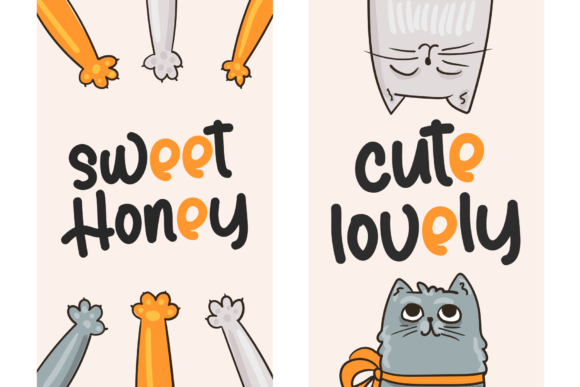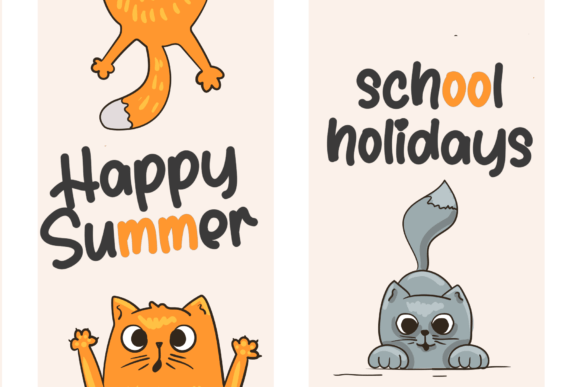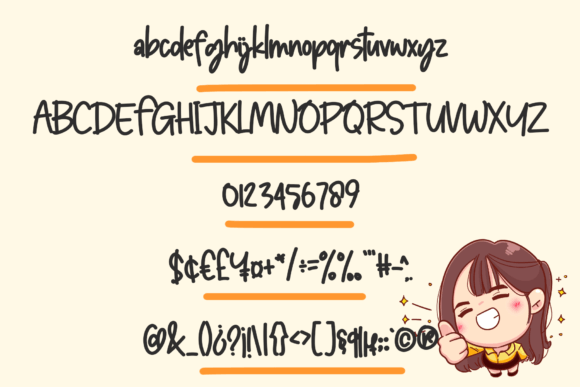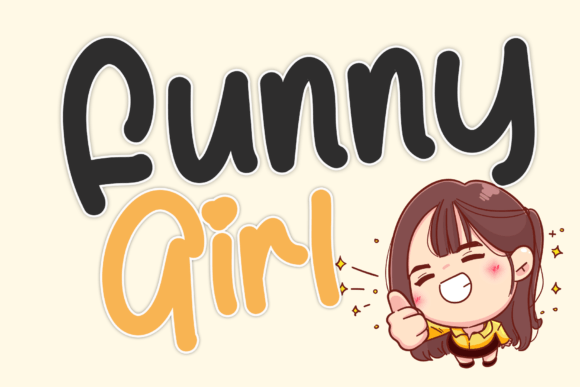
Introduction to Funny Girl Font
Funny Girl is a stylish handwritten font with a contemporary atmosphere and impeccable form, inspired by a timeless classic calligraphy.
Balanced and varied, this font was designed to enhance the beauty of your projects .
Key Features of Funny Girl Font
Why Choose Funny Girl Font?
Funny Girl Font offers exceptional quality and versatility, making it a valuable addition to your design toolkit. Whether you’re creating for personal projects or commercial use, Funny Girl Font delivers professional results.